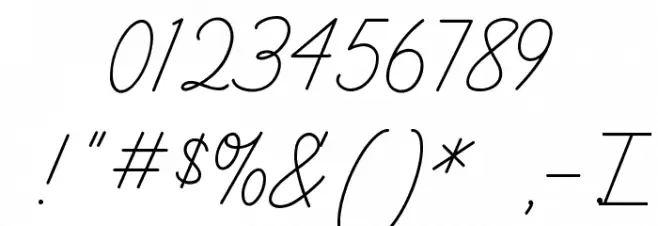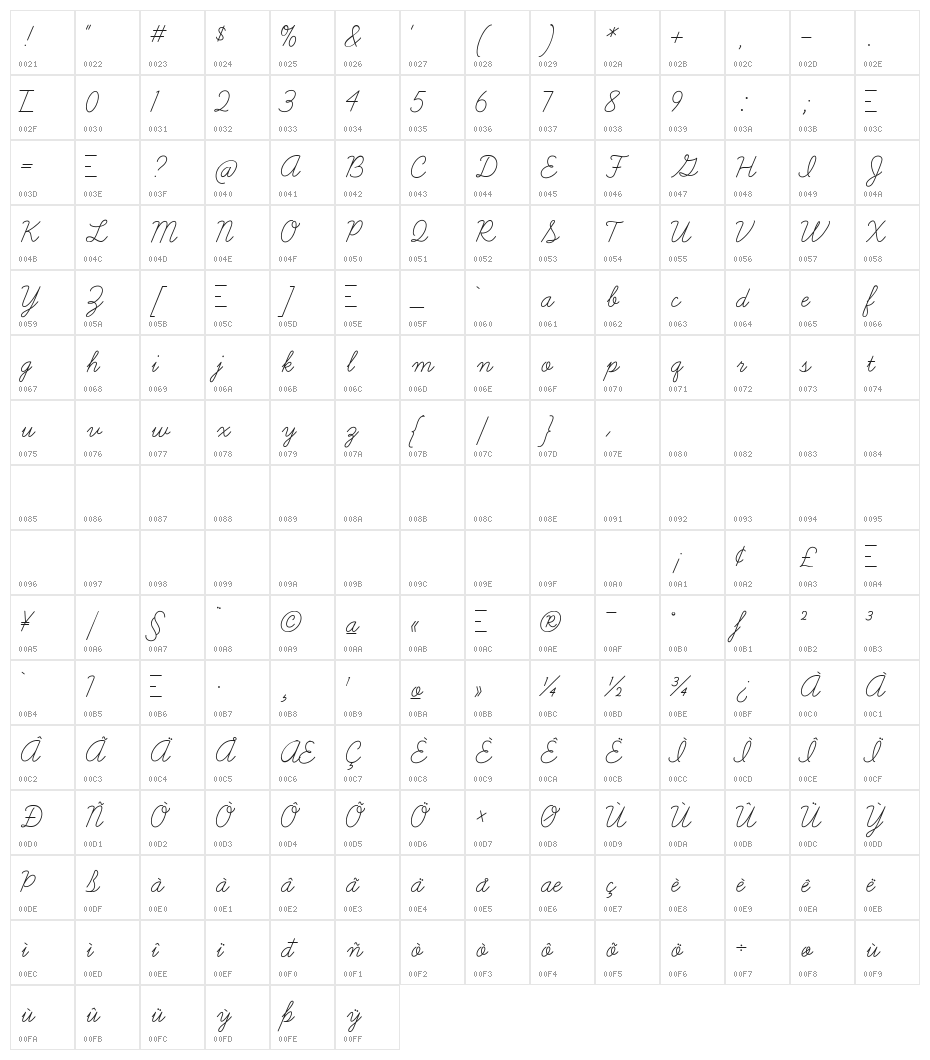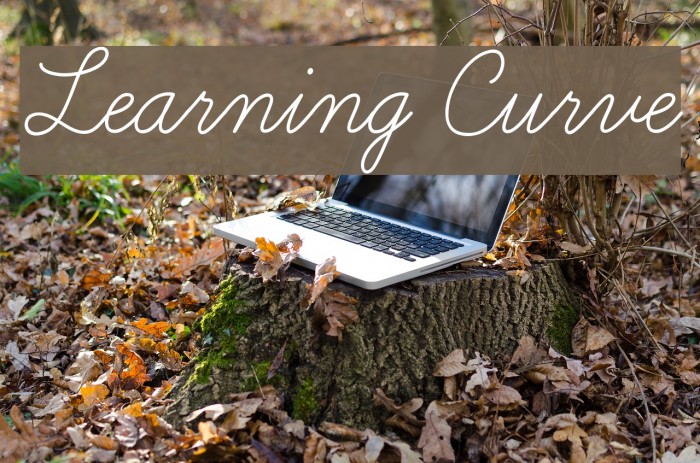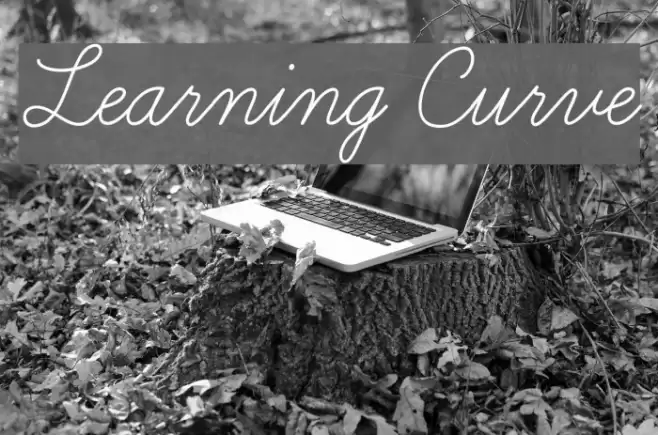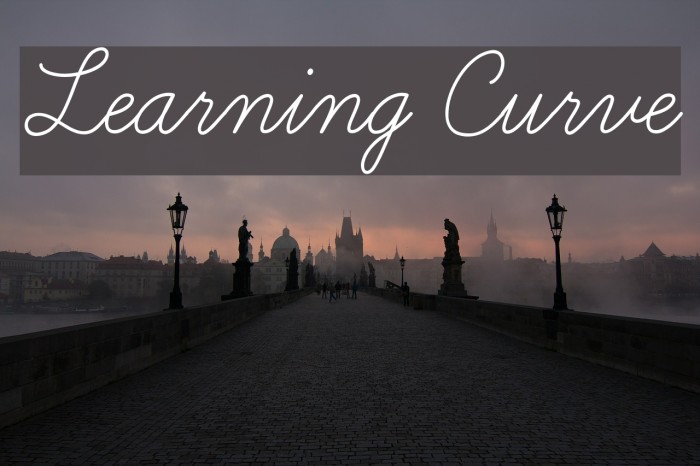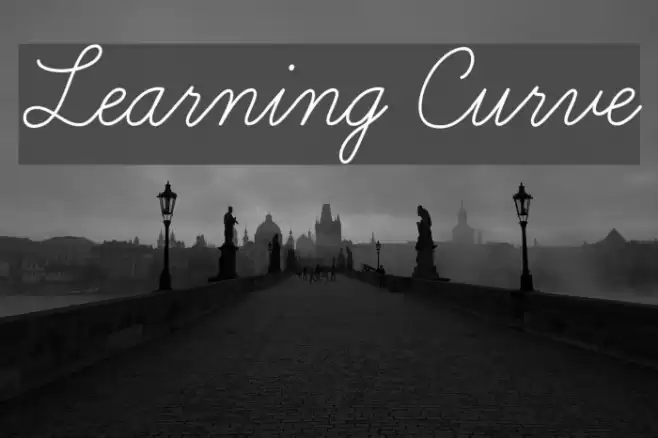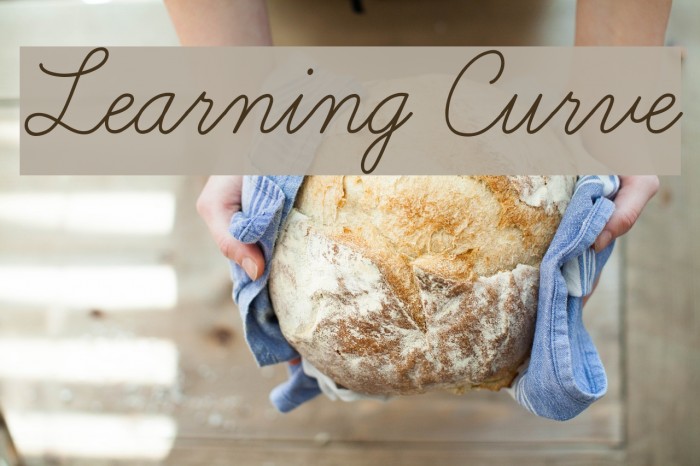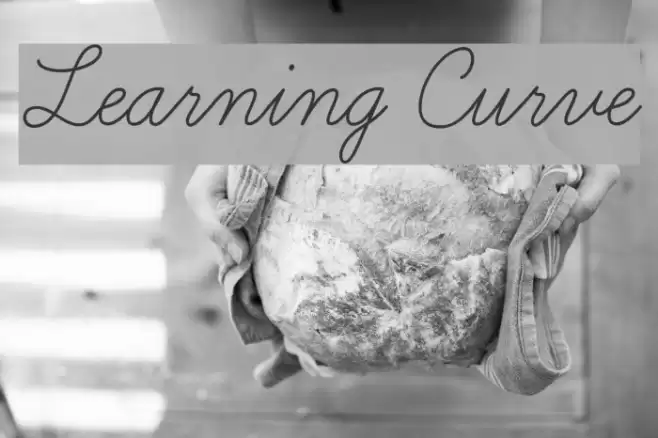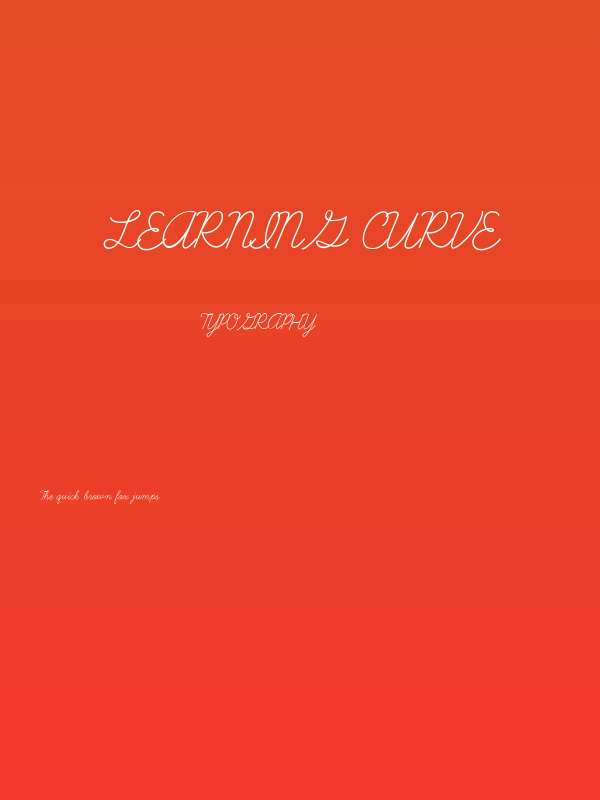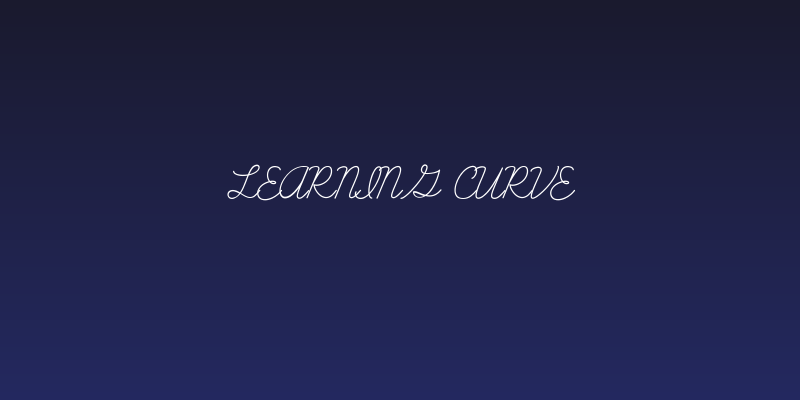
Learning Curve Font
Learning Curve Description
This elegant script font features a flowing, cursive style with smooth, connected strokes that mimic the fluidity of handwriting. The uppercase letters are slightly more ornate, with graceful loops and swirls, while the lowercase letters maintain a consistent, flowing baseline. The numerals and special characters are designed to complement the overall script style, maintaining the same fluidity and elegance. This font exudes a sense of sophistication and charm, making it ideal for projects that require a personal touch.
Overall StyleElegant